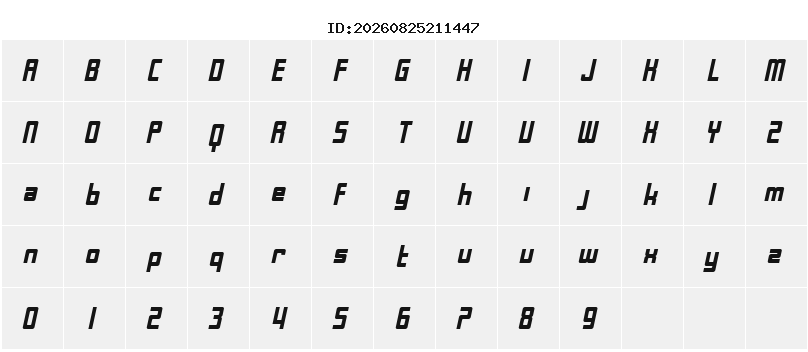
SF Laundromatic Preview
• Font Name: SF Laundromatic
• Font Style: Bold Oblique
• Full Font Name: SF Laundromatic Bold Oblique
About SF Laundromatic.ttf
SF Laundromatic.ttf is a modern, elegant sans-serif font designed for ultimate readability and visual harmony. Perfect for branding, headlines, web design, and print materials.